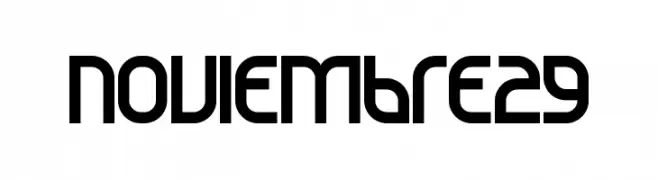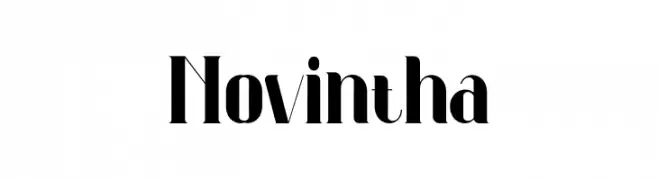
A bold, distressed font with a vintage, rugged appearance.
A bold, hand-painted style font with a textured, artistic appearance.
A modern, ultra-thin, and elongated font with a sleek and elegant style.
A tall, narrow font with an Art Deco style and consistent stroke width.
A bold, playful font with a hand-drawn, irregular style.
A bold, three-dimensional serif font with a medieval, gothic style.
A modern, geometric font with bold, clean lines and unique character shapes.
A bold, modern font with high contrast and geometric influences.
An elegant and flowing script font with dynamic strokes and interconnected letters.